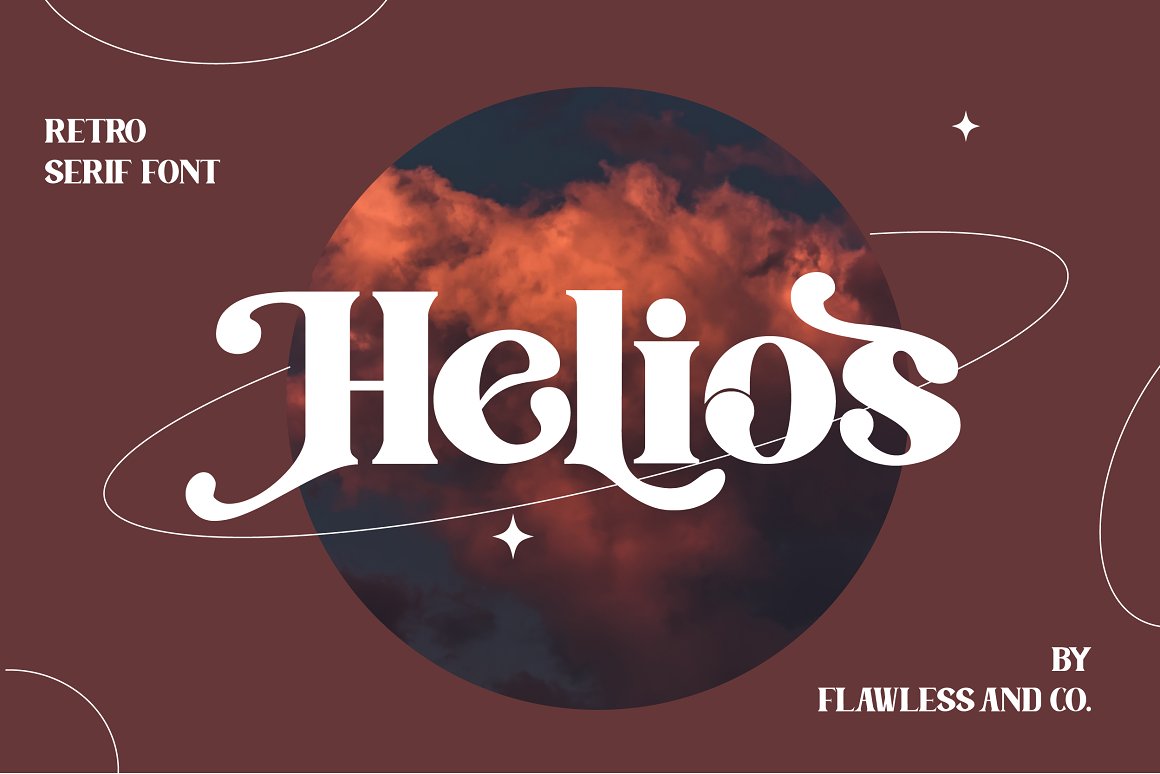
Helios Font
Helios is a font that immediately catches the eye with its modern retro style. It draws inspiration from the past while infusing it with contemporary elements, resulting in a typeface that stands out in today’s design landscape. The letterforms of Helios exude a sense of playfulness, with subtle curves and sleek lines that evoke a nostalgic charm. The balance between boldness and refinement is the hallmark of this font, making it a versatile choice for various design projects.
When it comes to branding, Helios shines brightly. Its unique blend of modernity and retro appeal allows it to adapt seamlessly to different brand identities, capturing the essence of the brand and conveying its message with precision. Whether it’s a sleek and sophisticated logo or a bold and vibrant visual identity, Helios adds a touch of elegance and personality to the brand, leaving a lasting impression on clients and customers.
The versatility of Helios extends to invitations and masterheads. Whether you’re designing wedding invitations, event announcements, or professional letterheads, Helios brings a touch of sophistication and style to every occasion. Its fun and elegant nature elevates the overall aesthetics of the design, creating a memorable experience for recipients and setting the tone for the event or correspondence.
One of the key advantages of Helios is its ability to harmonize with various design elements. Its clean and well-defined letterforms complement both minimalist and elaborate compositions, allowing designers to experiment with different styles and create visually striking layouts. The font’s versatility enables it to be paired with other typefaces and design elements seamlessly, resulting in a cohesive and visually appealing final product.